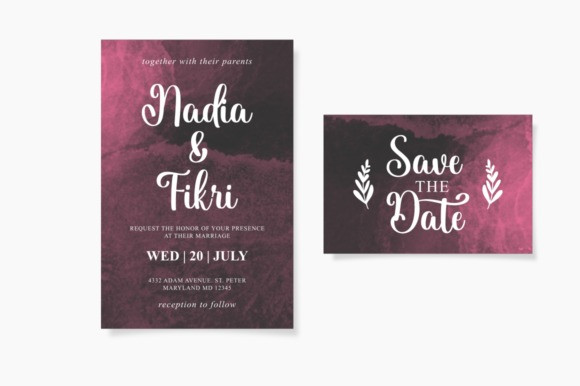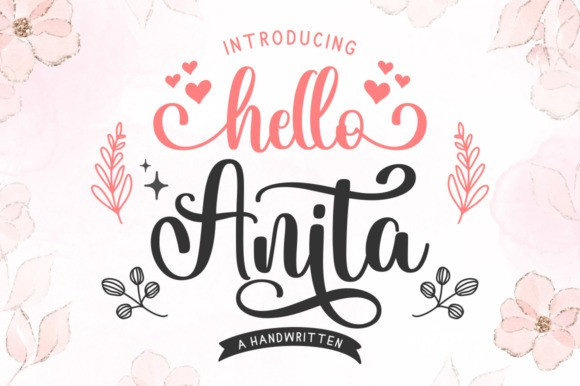
Hello Anita Font
Hello Anita Script Font is a lovely script font featuring charming, playful characters that seem to dance along the baseline. This font is PUA encoded which means you can access all of the amazing glyphs and ligatures with ease!